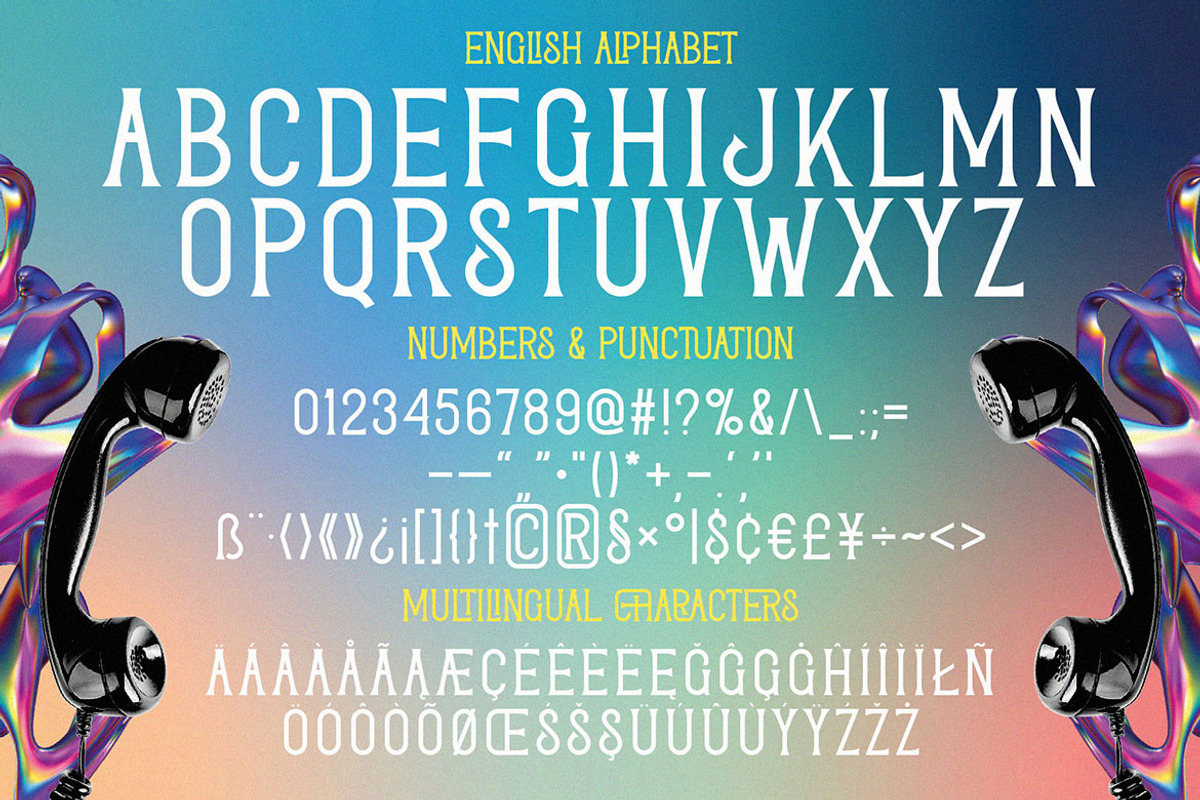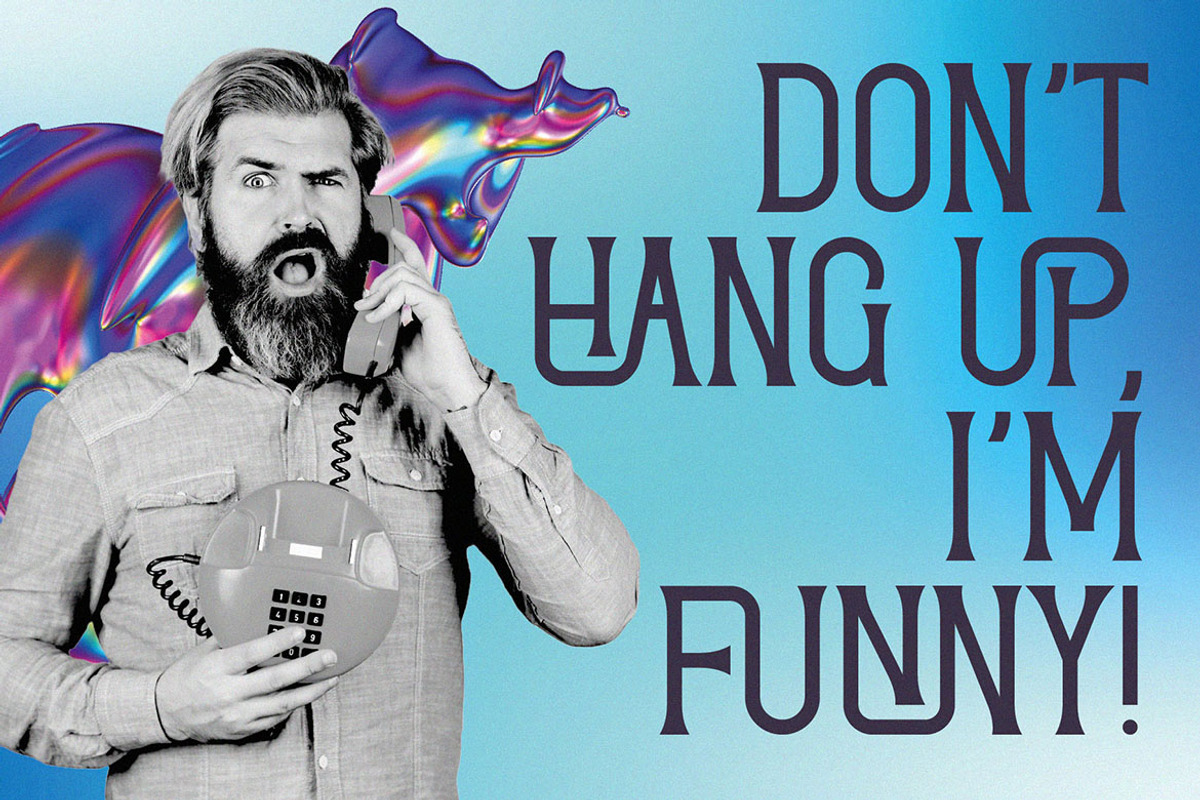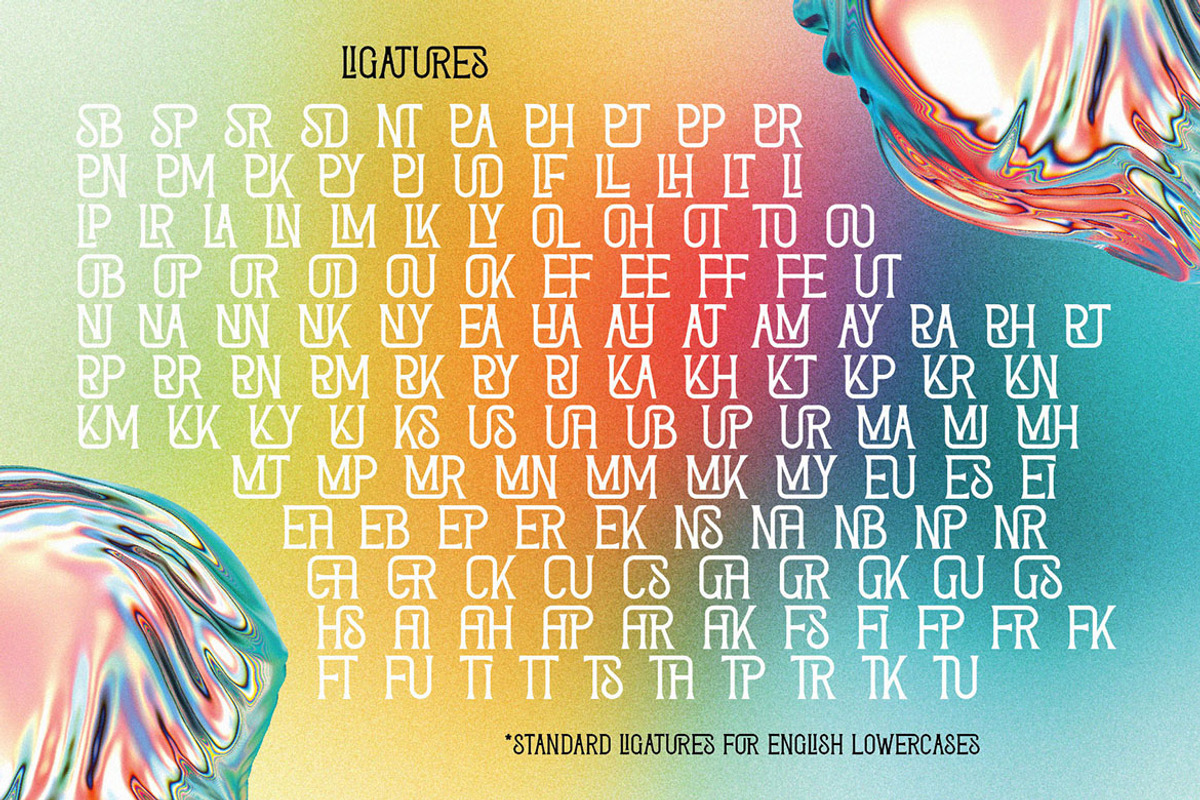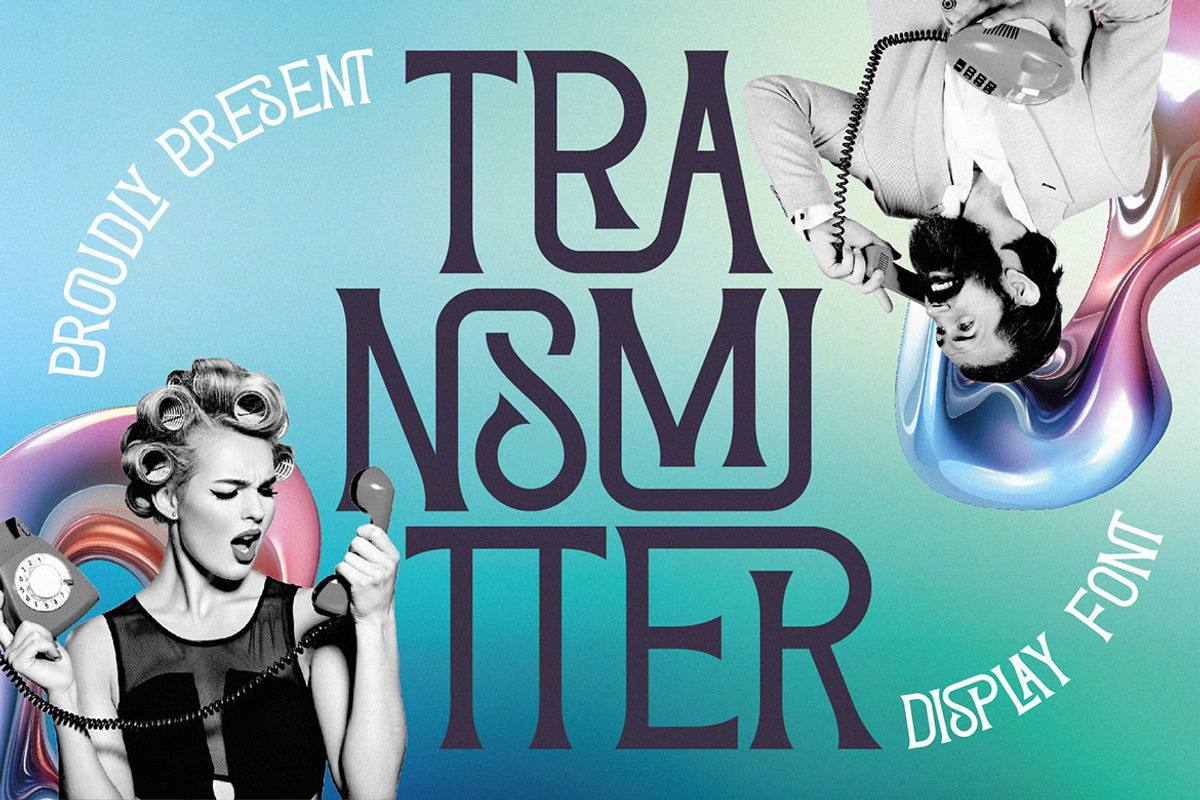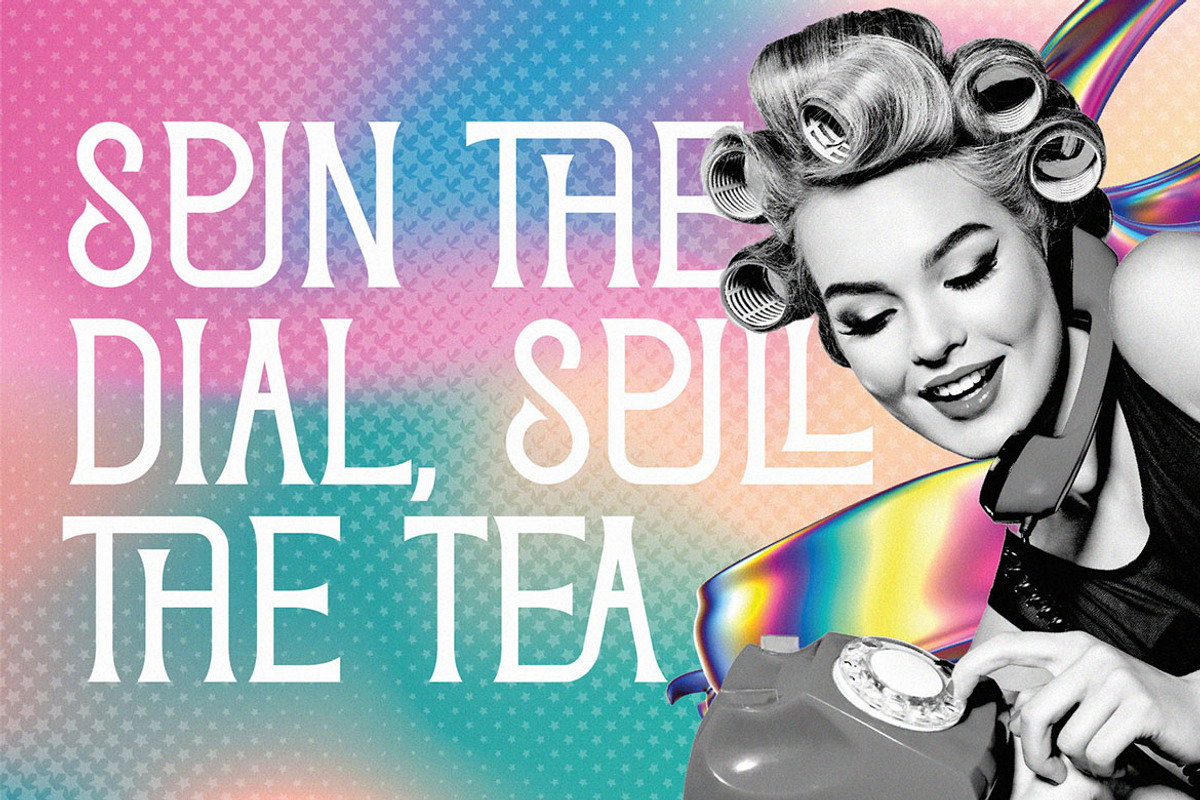
Transmitter Ligature Serif
Unique, clean, simple, retro, classic & display serif font. Comes with multilingual support & lot of ligatures - great for your new logo, monogram or branding project.
- Multilingual support & lot of ligatures
- Great for your new logo, monogram or branding project